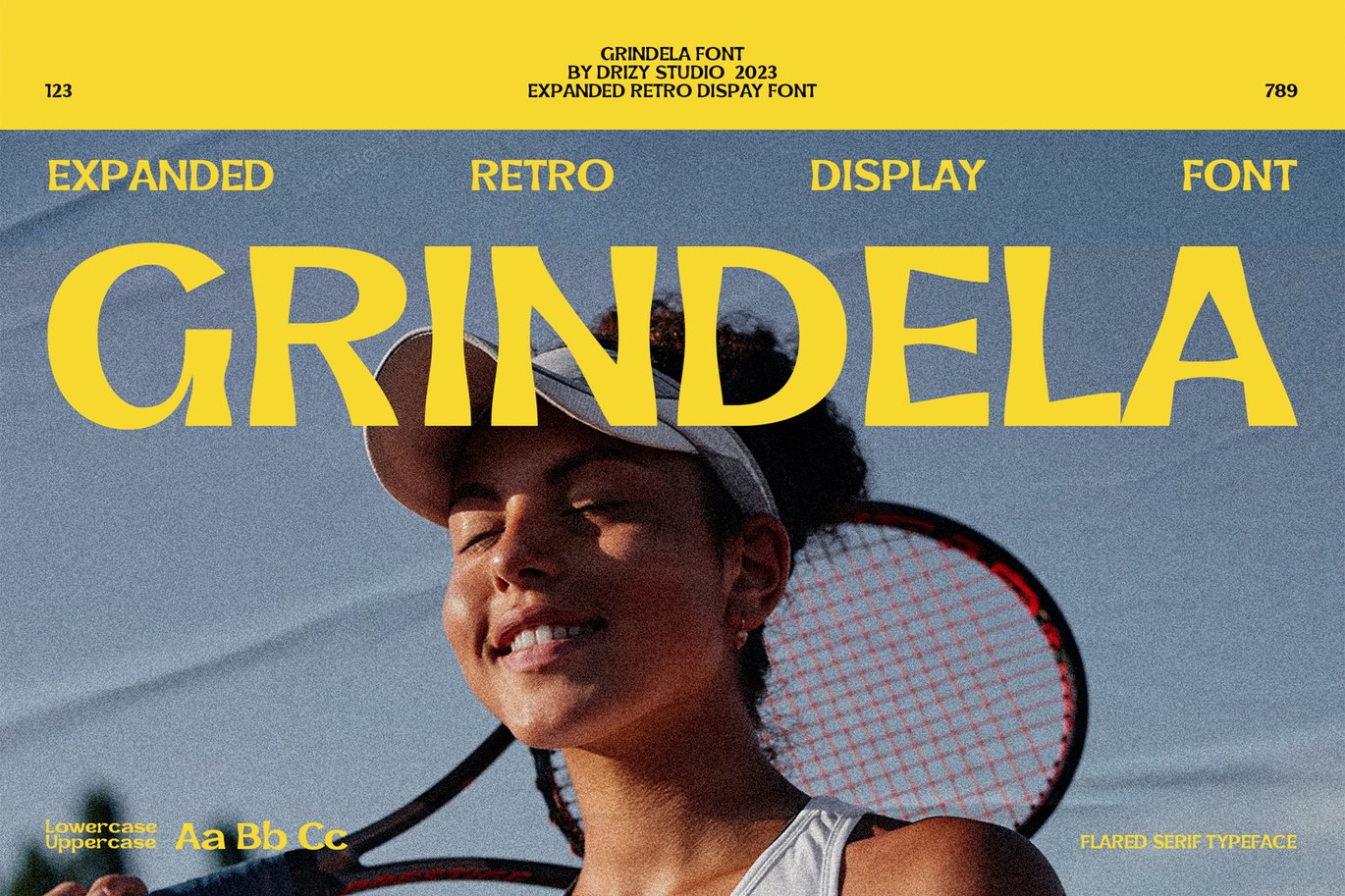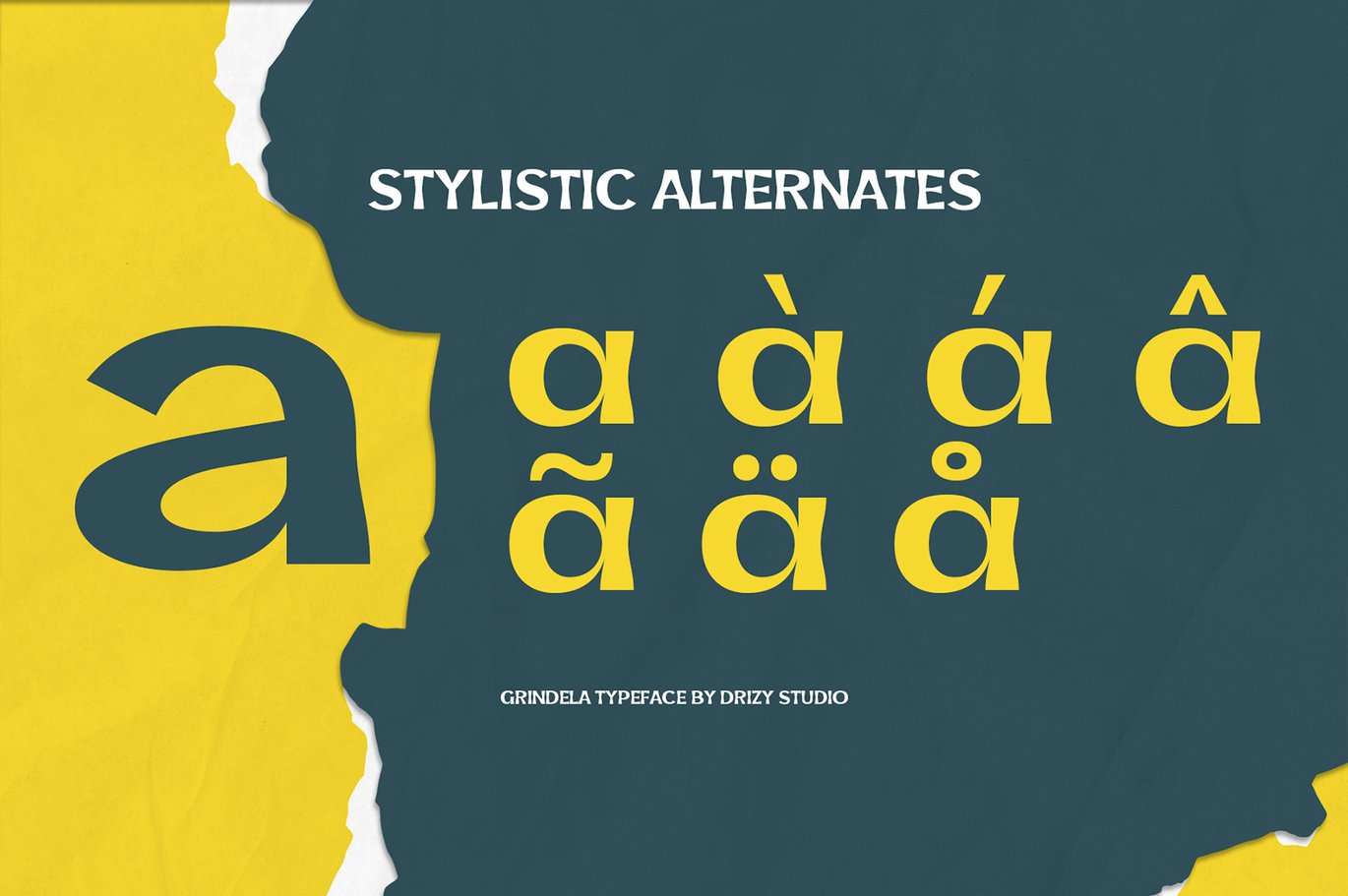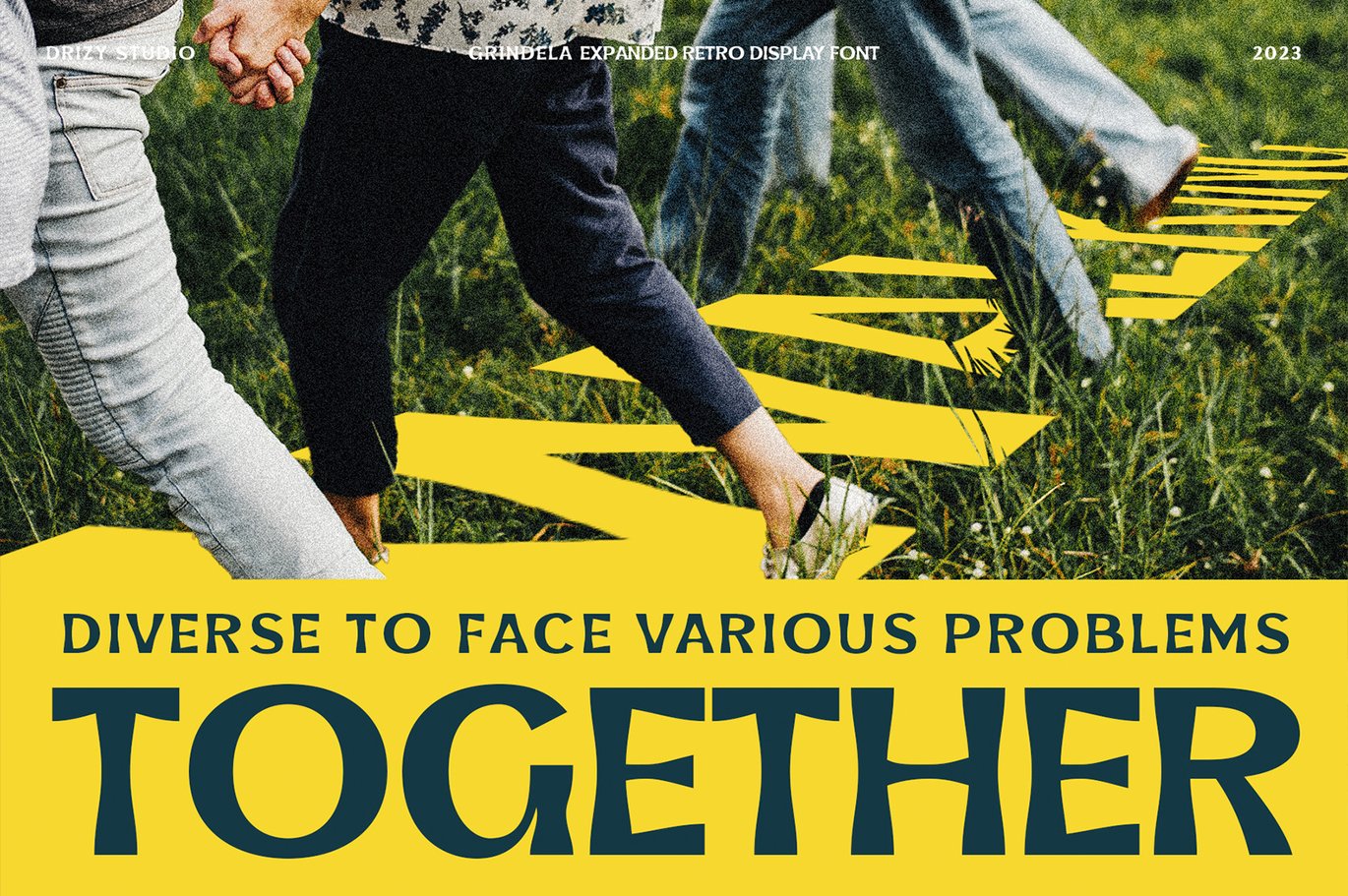
Grindela – Expanded Retro Font
Grindela – Expanded Retro Font is a versatile typeface ideal for various projects, including logos, branding, posters, blog headers, advertisements. The free version includes a full set of uppercase and lowercase letters, available in OTF format.